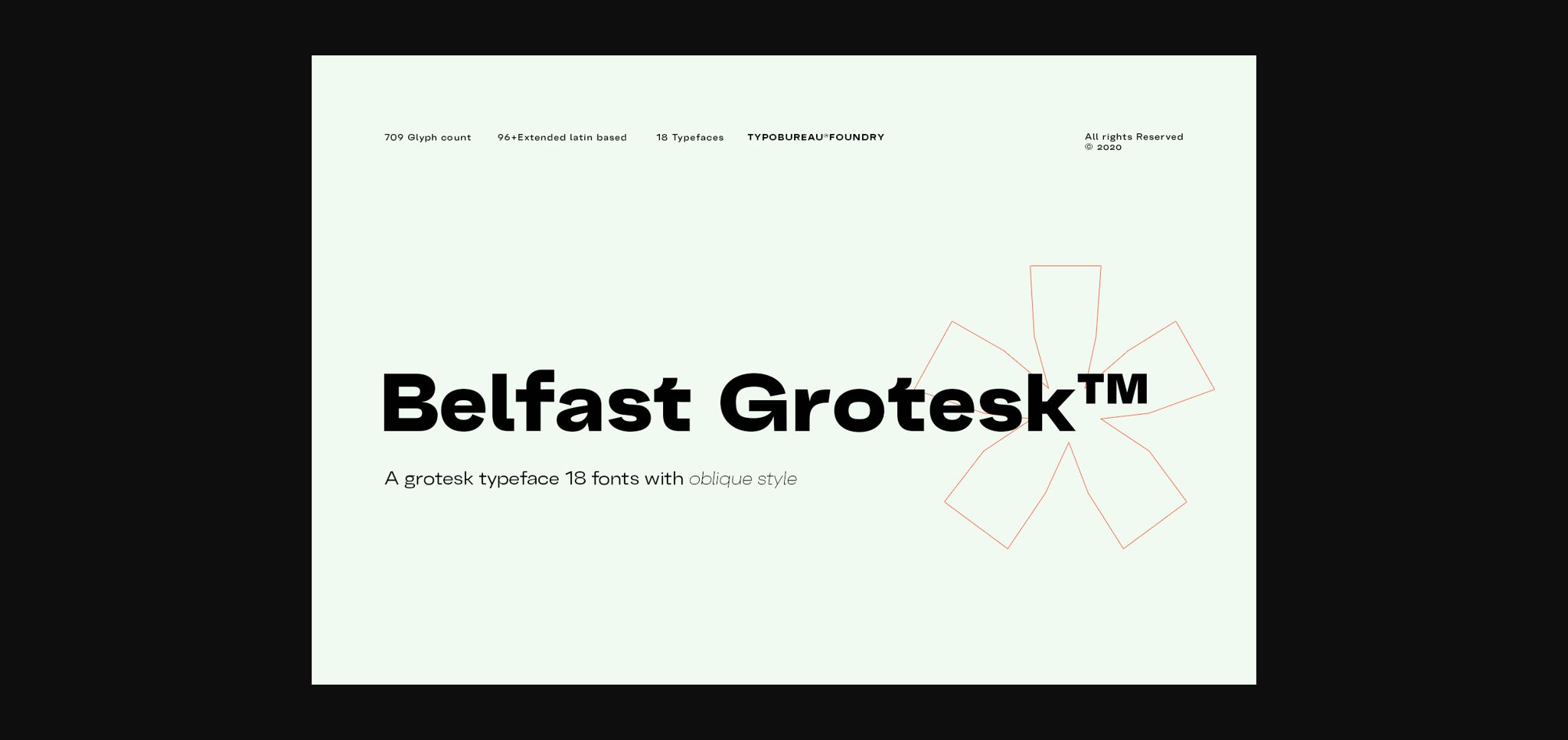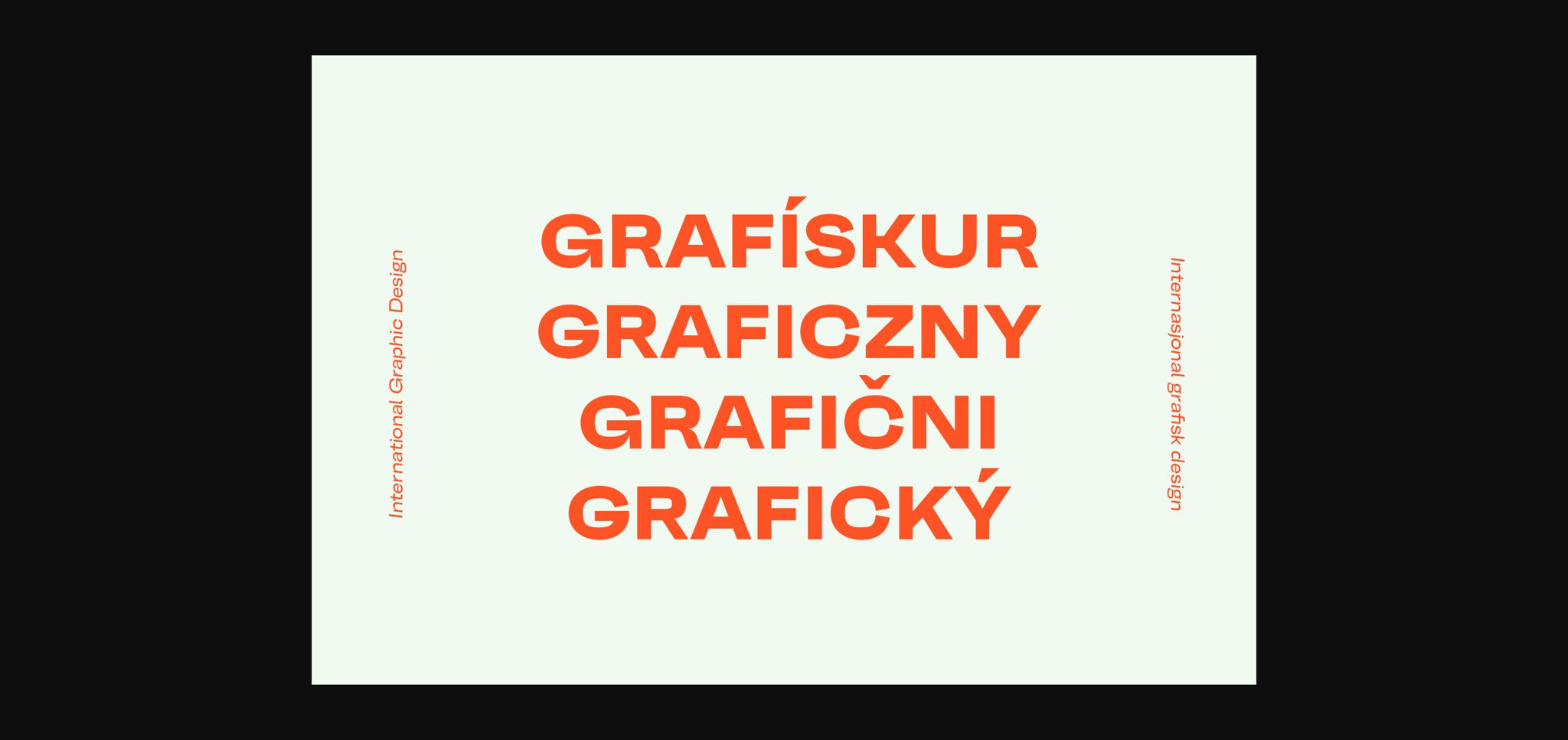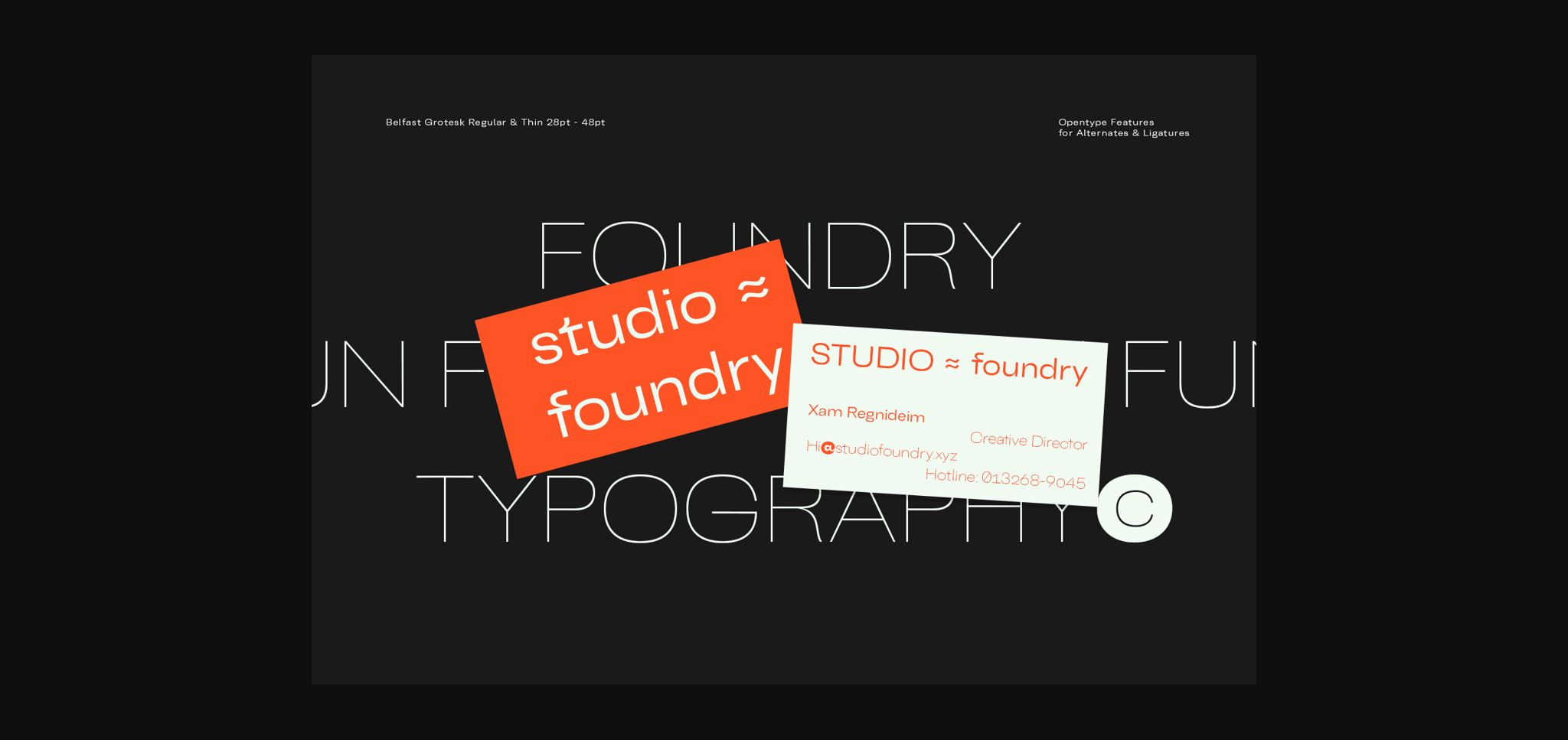
About Belfast Grotesk Font
Belfast Grotesk was influenced by the grotesk typefaces developed in the early 20th century and is an incredibly daring sans serif font. Vintage styled and adaptable, this font will make a masterpiece out of any creation.